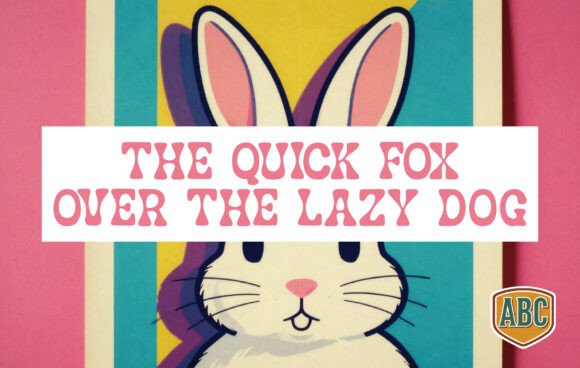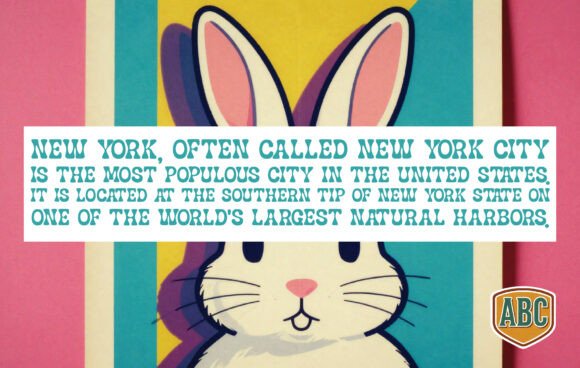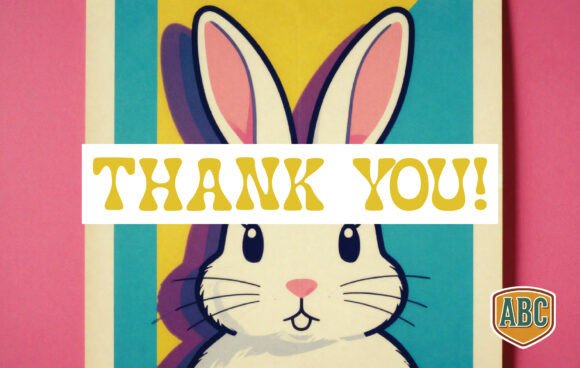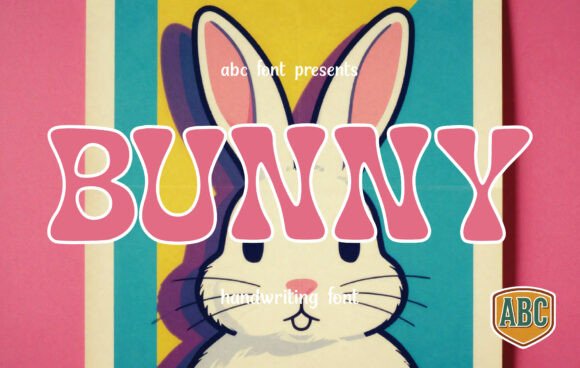
Add a Touch of Whimsical Charm with the Bunny Font
In the world of typography, few fonts capture the essence of playfulness and warmth as effectively as the Bunny font. Designed by abc font, this adorable display typeface is perfect for creatives looking to infuse their projects with a sense of joy and whimsy. Whether you’re working on children’s educational materials, nursery decor, or social media headers, the Bunny font is sure to make your designs stand out with its unique blend of bold, bubbly letterforms and organic strokes.
The Characteristics of the Bunny Font
The Bunny font boasts a playful and spontaneous feel, thanks to its hand-sketched design. This characteristic makes it an excellent choice for designers who want to add a personal, handcrafted touch to their work. The font’s bold and bubbly letterforms are not only visually appealing but also versatile, allowing for effortless creative layering in a single design. This means you can experiment with different combinations of colors, textures, and styles to create a truly unique look that reflects your brand’s personality.
Ideal Uses for the Bunny Font
The Bunny font is incredibly versatile and can be used in a variety of projects, including:
• Children’s Educational Materials: The font’s playful and engaging design makes it perfect for textbooks, workbooks, and other educational resources aimed at young children.
• Playful Nursery Decor: Add a touch of whimsy to nursery decor with the Bunny font, perfect for wall art, posters, and other decorative elements.
• Vibrant Social Media Headers: Make your social media profiles stand out with a friendly and approachable header that showcases the Bunny font.
• Colorful Birthday Invites: Create memorable birthday invitations that set the tone for a fun and celebratory event.
• Toy Store Branding: The Bunny font is a great fit for toy store branding, adding a playful and youthful touch to packaging, signage, and marketing materials.
• Family-Oriented Blogs: Use the Bunny font as a fun and engaging header for family-oriented blogs, creating a warm and inviting atmosphere for readers.
Why Designers Love the Bunny Font
Designers appreciate the Bunny font for its ability to bridge the gap between the brand and the audience. Its spontaneous, hand-sketched feel creates a sense of connection and approachability, making it easier to communicate with your target audience. The font’s expressive characters and soft, rounded edges ensure that your message remains engaging for all ages, providing a creative and heartfelt foundation for any project focused on learning and growth.
Tips for Using the Bunny Font Effectively
To get the most out of the Bunny font, consider the following tips:
• Experiment with Colors: The Bunny font looks great in a variety of colors, so don’t be afraid to experiment and find the perfect combination for your project.
• Play with Texture: Add depth and interest to your design by incorporating different textures and patterns.
• Mix and Match: Combine the Bunny font with other fonts and design elements to create a unique and visually appealing look.
The Bunny font is a delightful and versatile typeface that can add a touch of whimsical charm to any project. Its playful and spontaneous feel makes it perfect for designers and crafters looking to create engaging and memorable designs. Whether you’re working on children’s educational materials, nursery decor, or social media headers, the Bunny font is sure to bring a sense of joy and warmth to your work. So why not give it a try and see how this adorable font can elevate your designs?